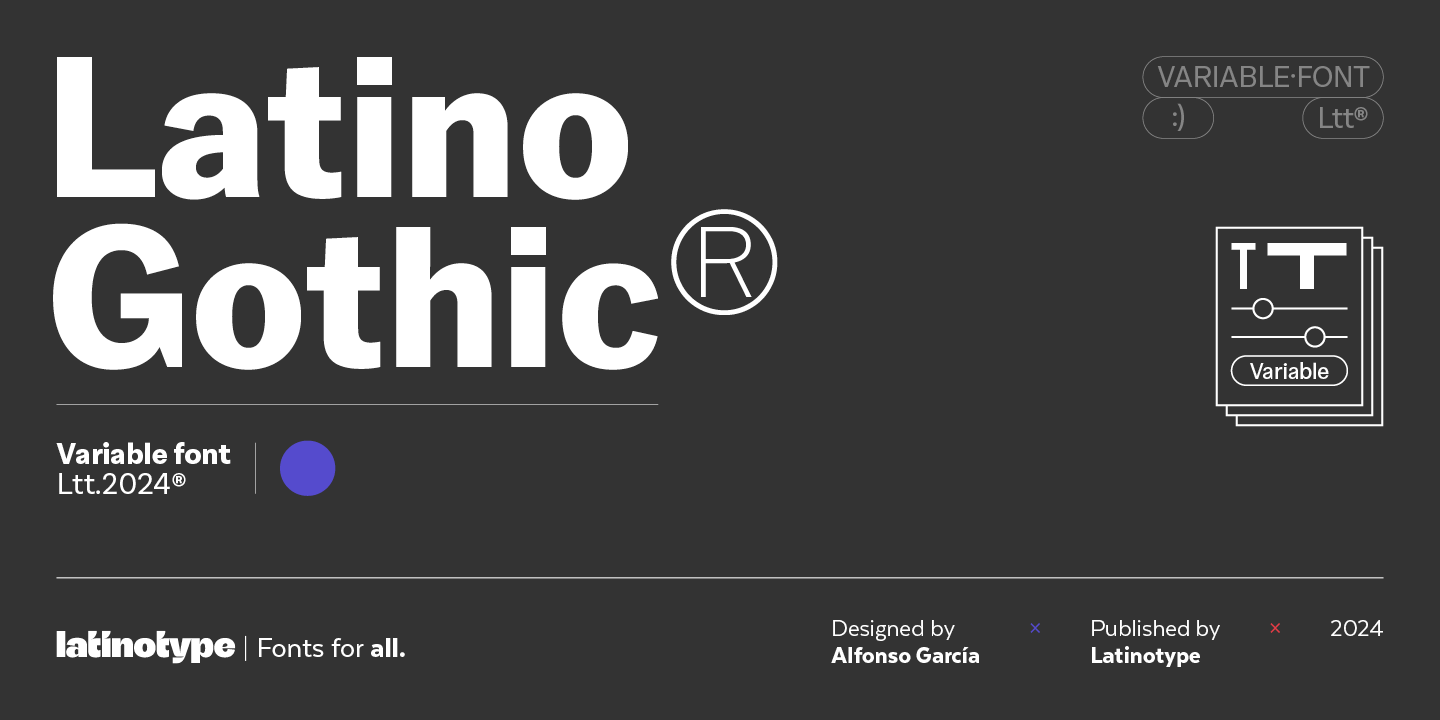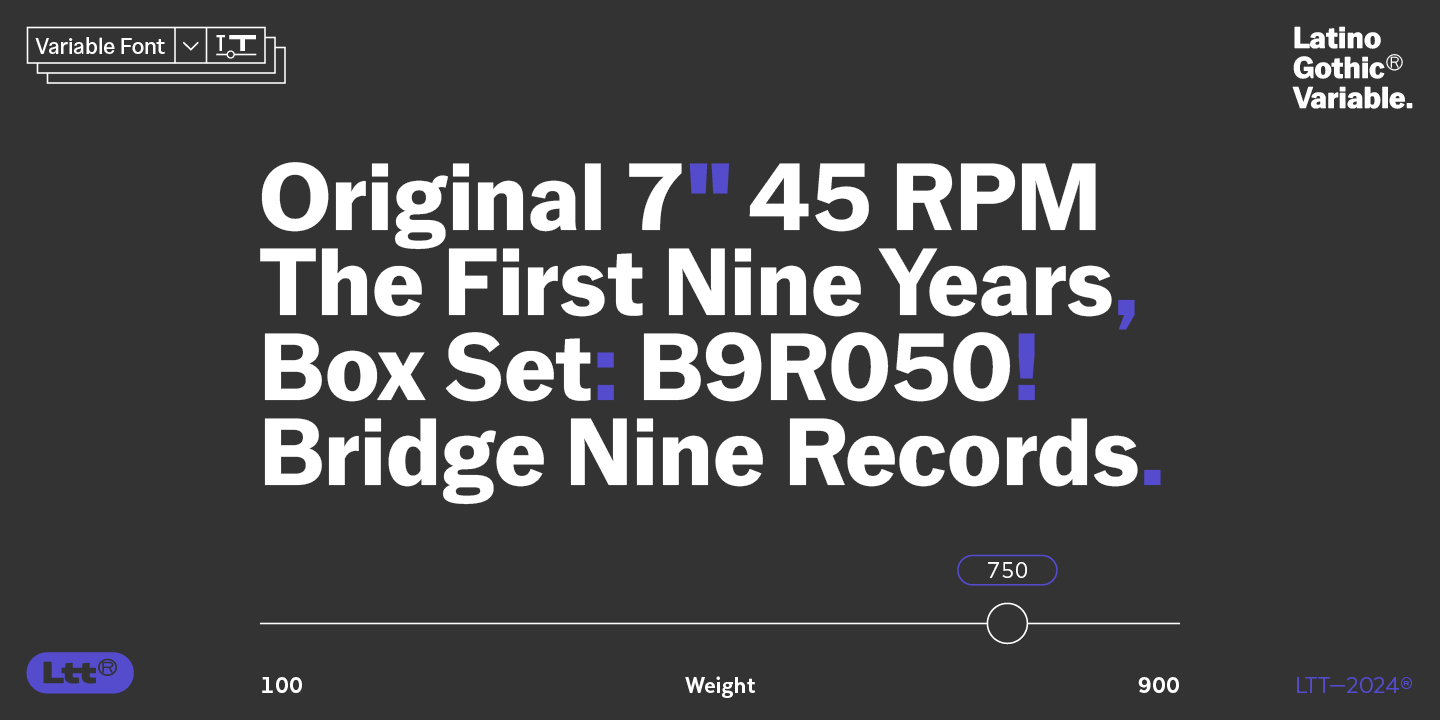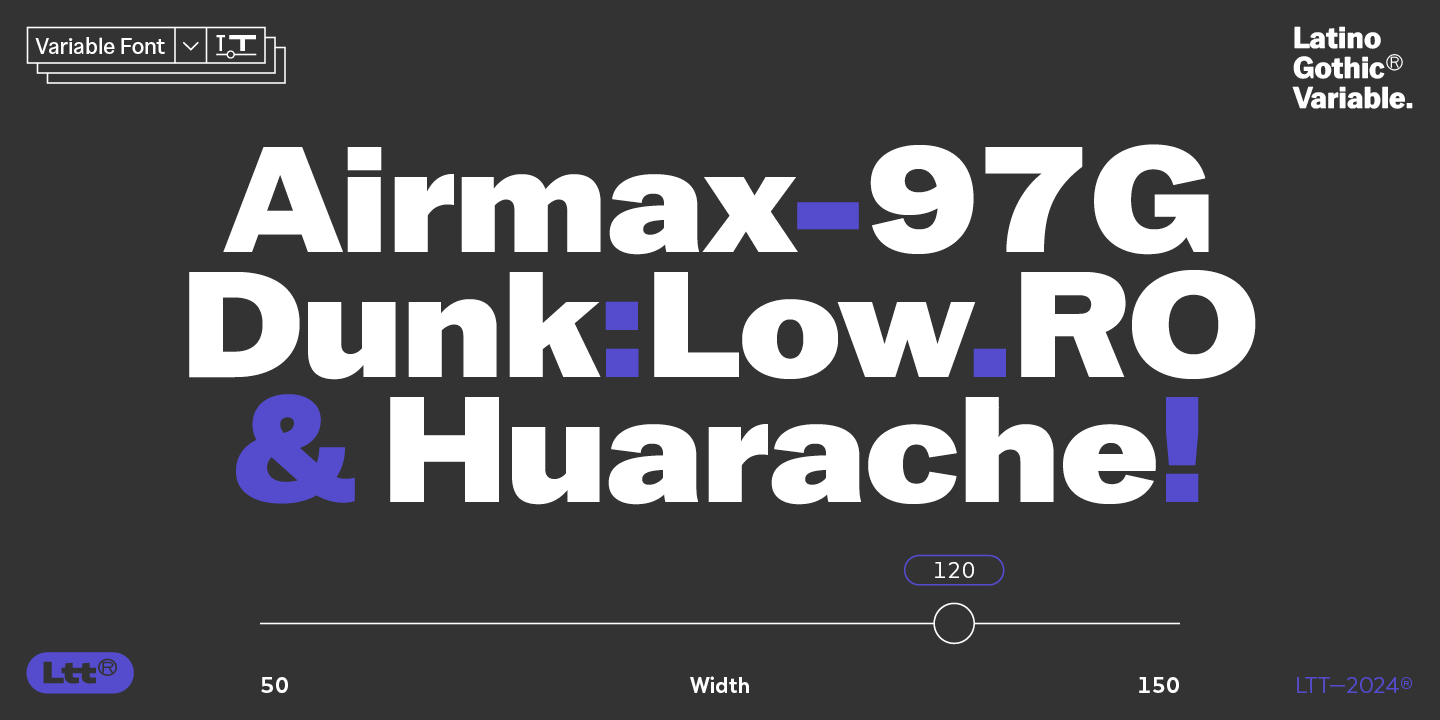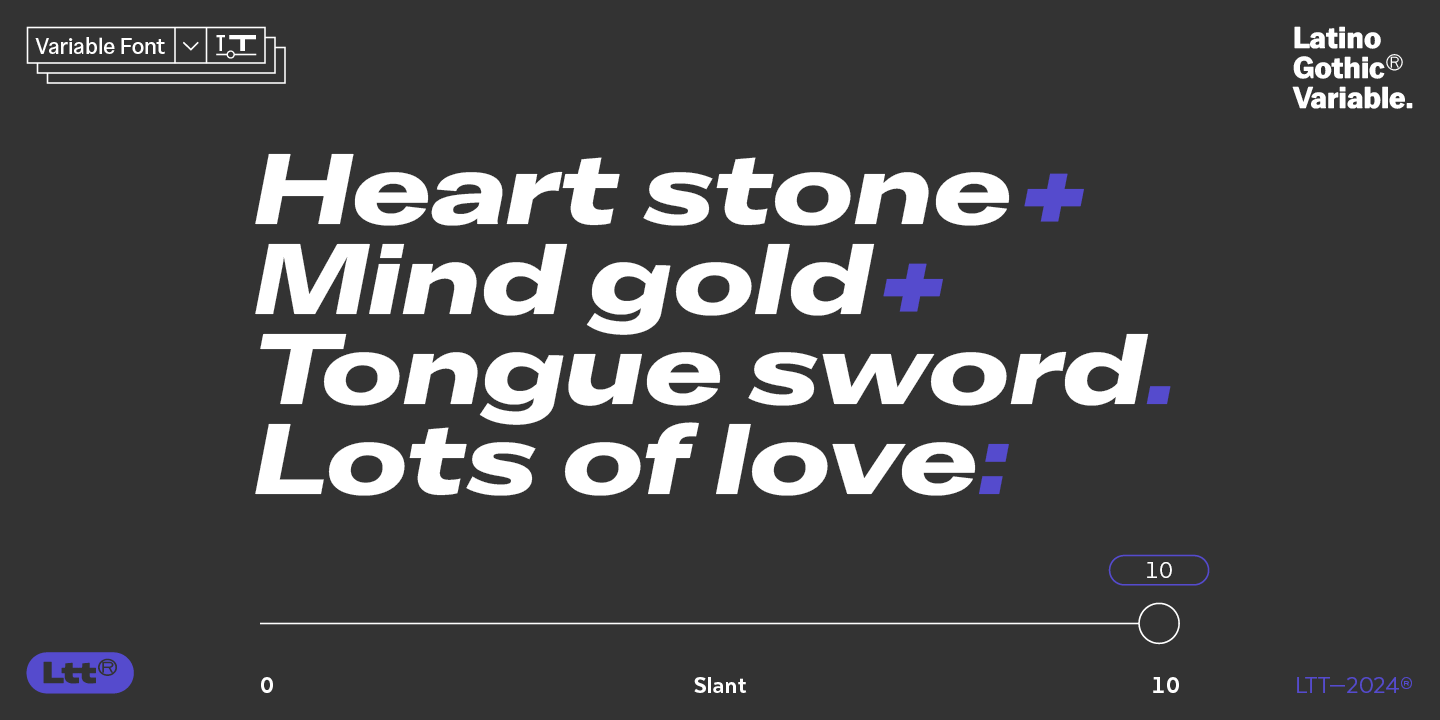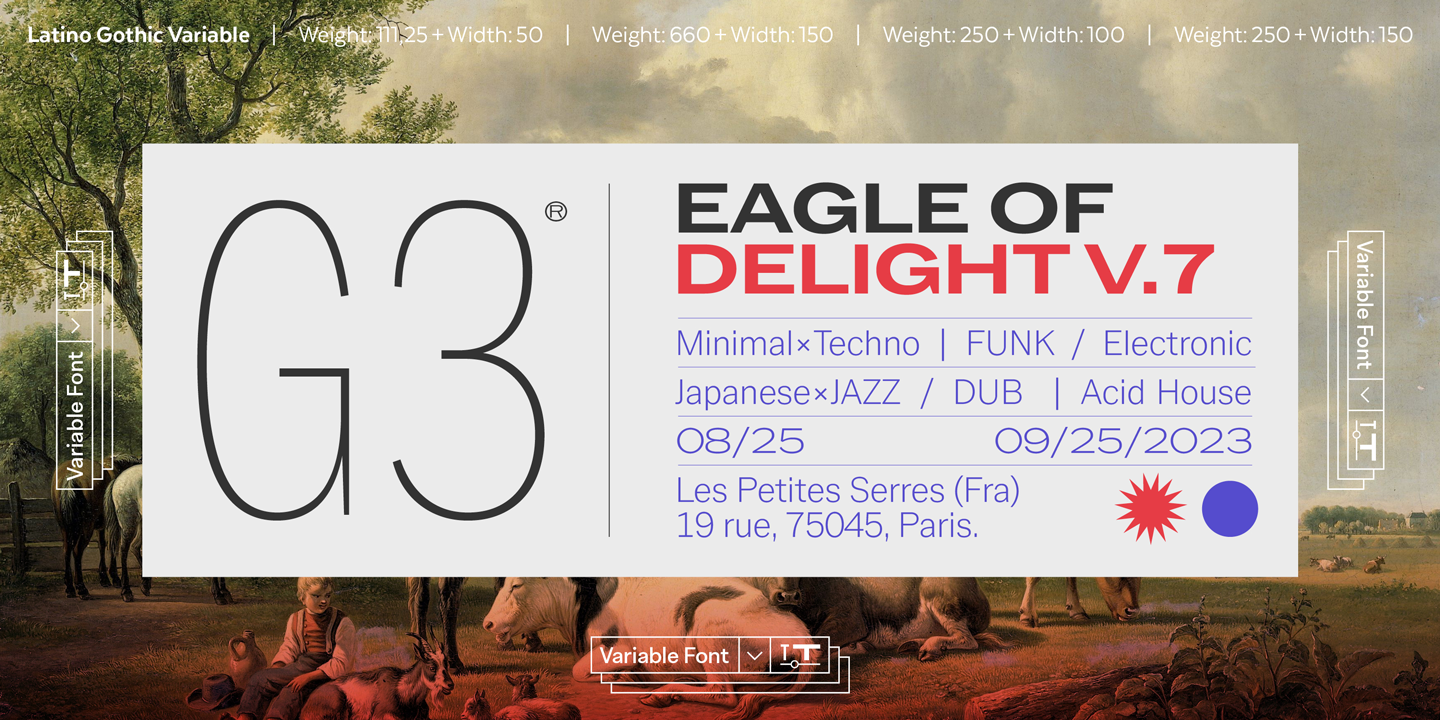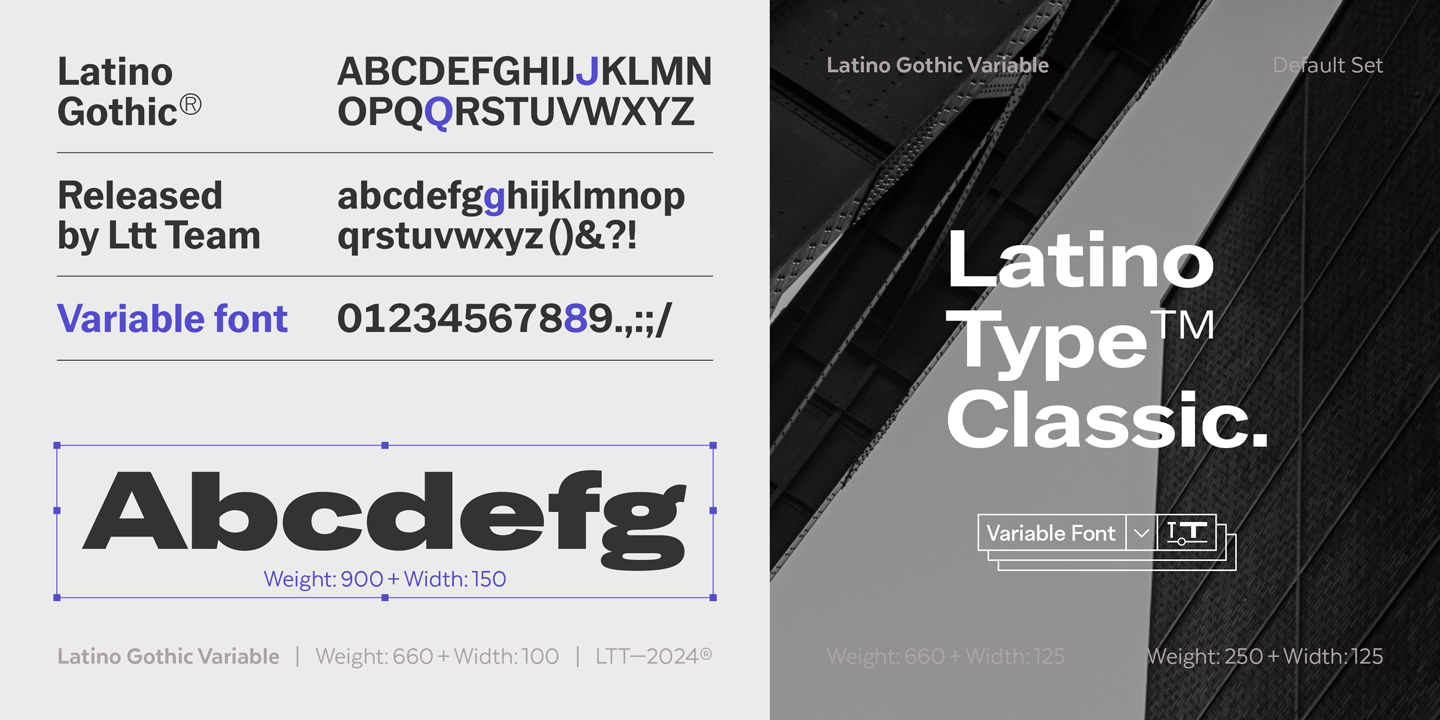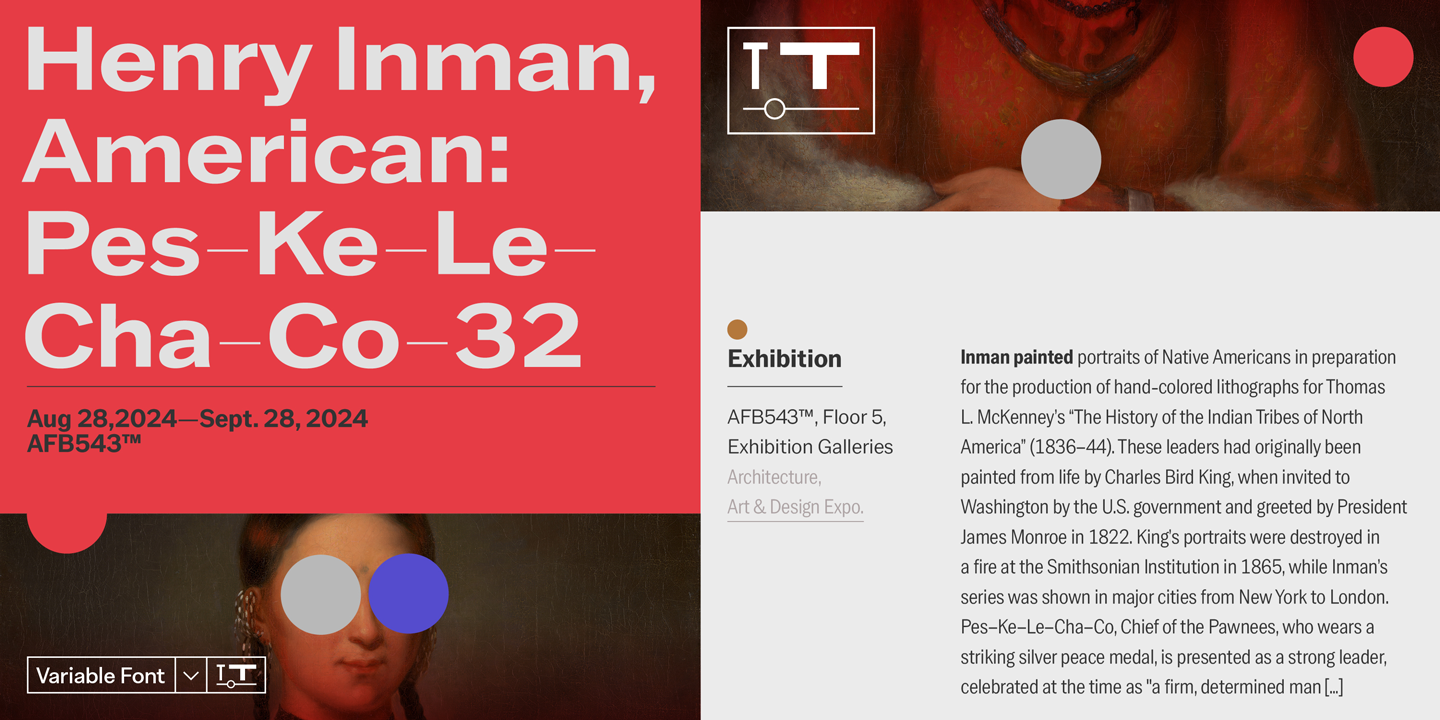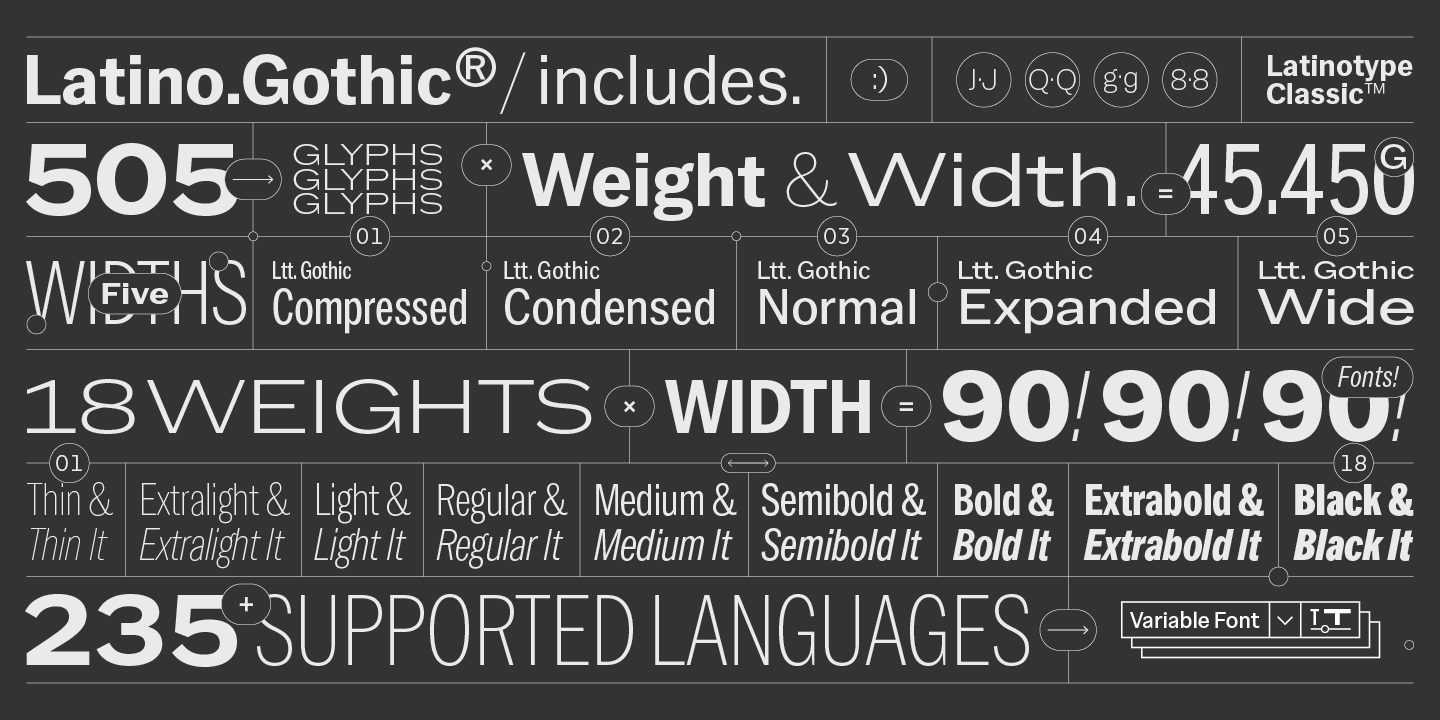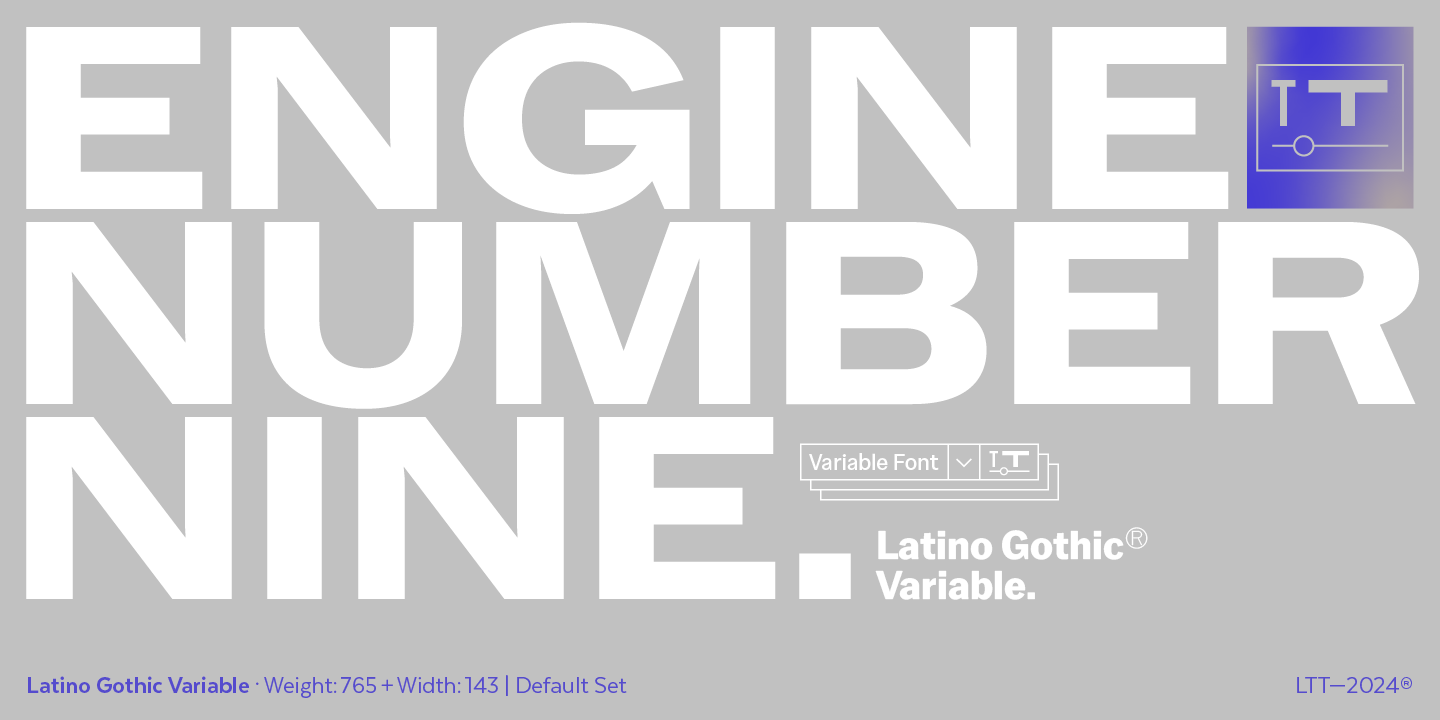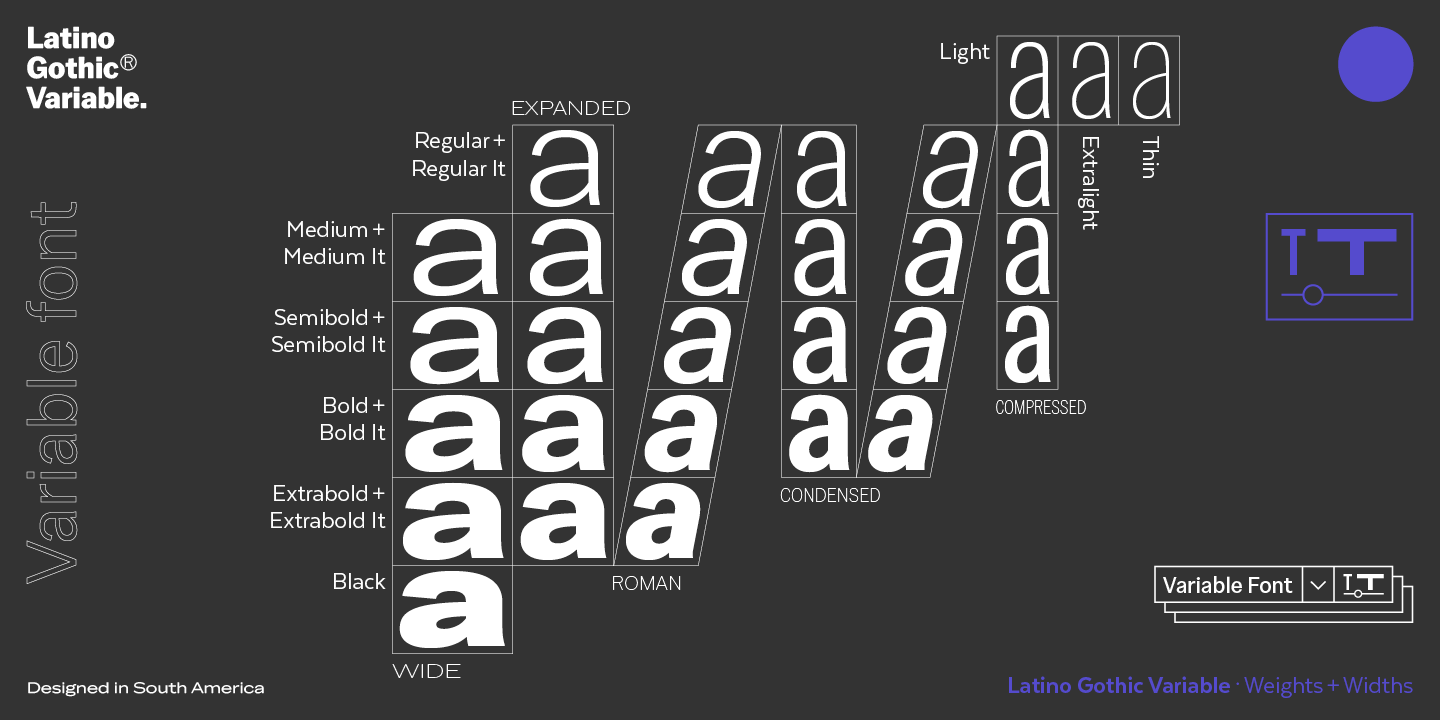
We are really proud to present a superfamily with the magnitude and characteristics of "Latino Gothic Variable".
"Latino Gothic Variable" offers a new interpretation of the original design totally focused on the needs of visual communication of the 21st century.